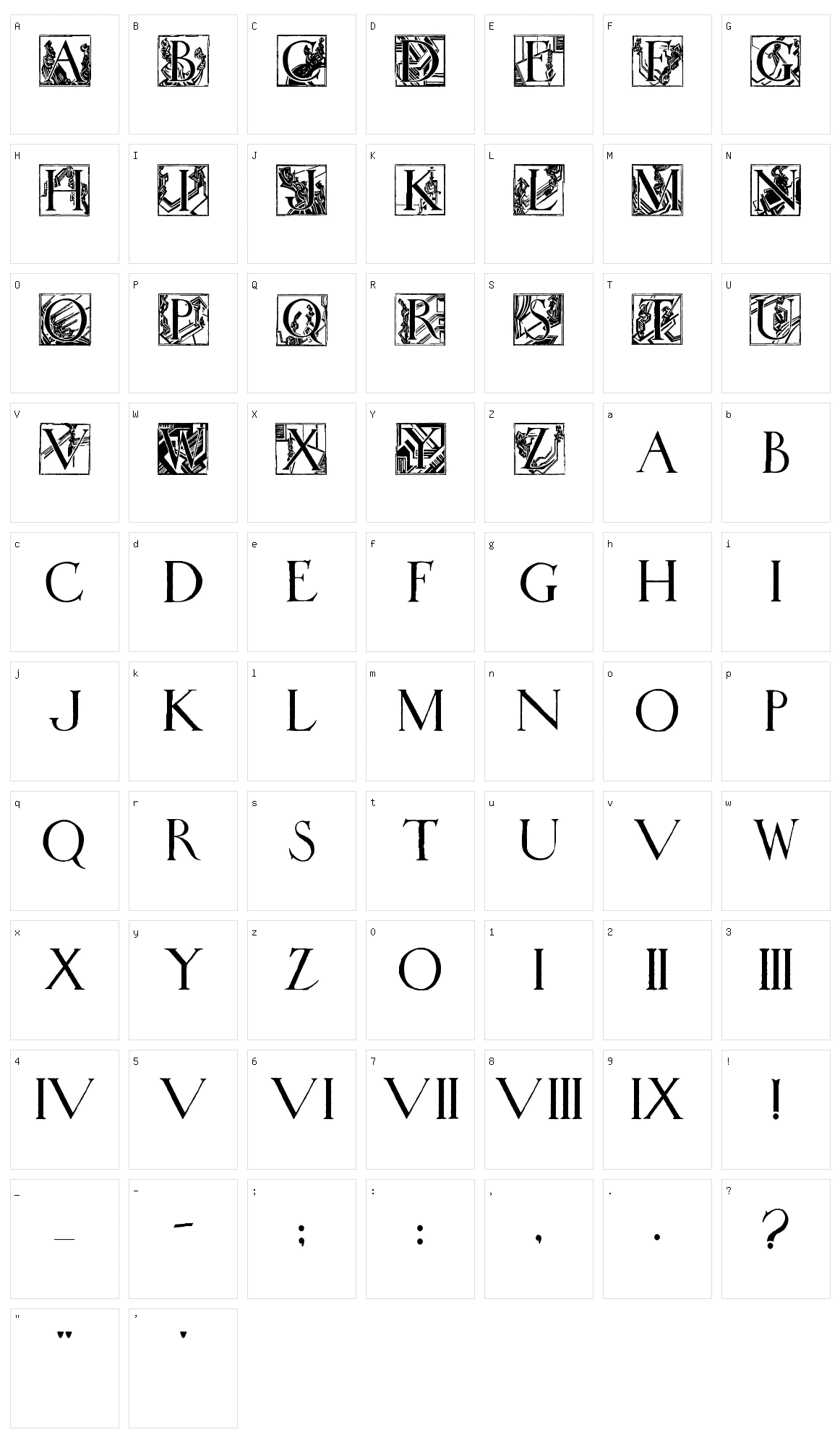
Wadsworth's Industria
A set of "Hand Drawn" Roman letters and
initials based on a 1920's design by Edward Wadsworth of Britain. There's
something in the background of the initials that suggests dark sooty
factories to me...hence the name.
Paul Lloyd